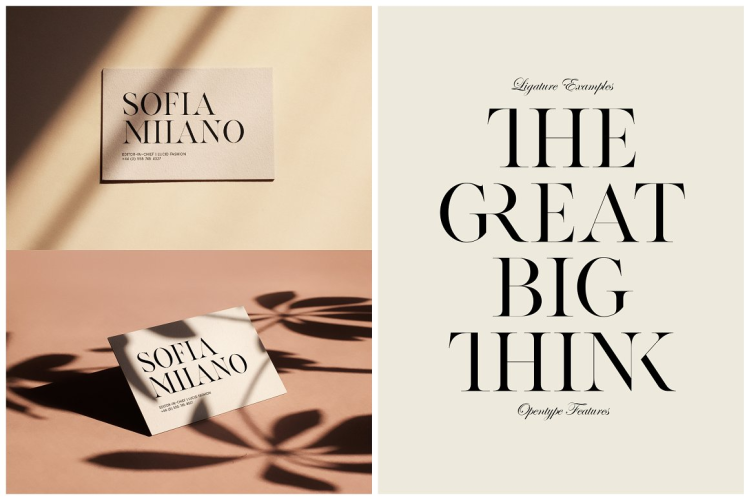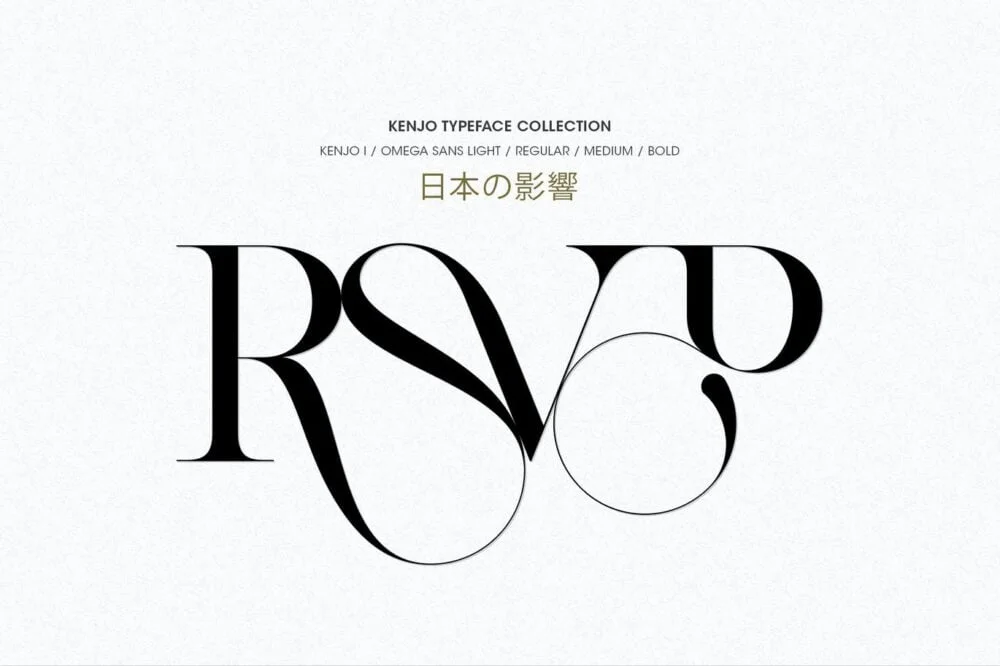
Kenjo Font
Kenjo Font combination, with Japanese/Art Deco influence. Completely uppercase (currently), Kenjo I is a versatile, legible and well-balanced Serif. Accompanied by Omega…
Kenjo Font combination, with Japanese/Art Deco influence. Completely uppercase (currently), Kenjo I is a versatile, legible and well-balanced Serif. Accompanied by Omega Sans, a Classic Sans-Serif Font Family (4 Weights). A great pairing for Displays/Headings & Sub-Headings/Sub-Text.
Kenjo Font Ideal for professional logos, sharp displays, magazines, blog titles, wedding invitations, social media and print.
Where Kenjo Font works best
Kenjo Font is built for size: event posters, hero headlines and billboard-style layouts.
High contrast display type like Kenjo Font reads instantly in thumbnails and motion graphics.
What is Kenjo Font good for?